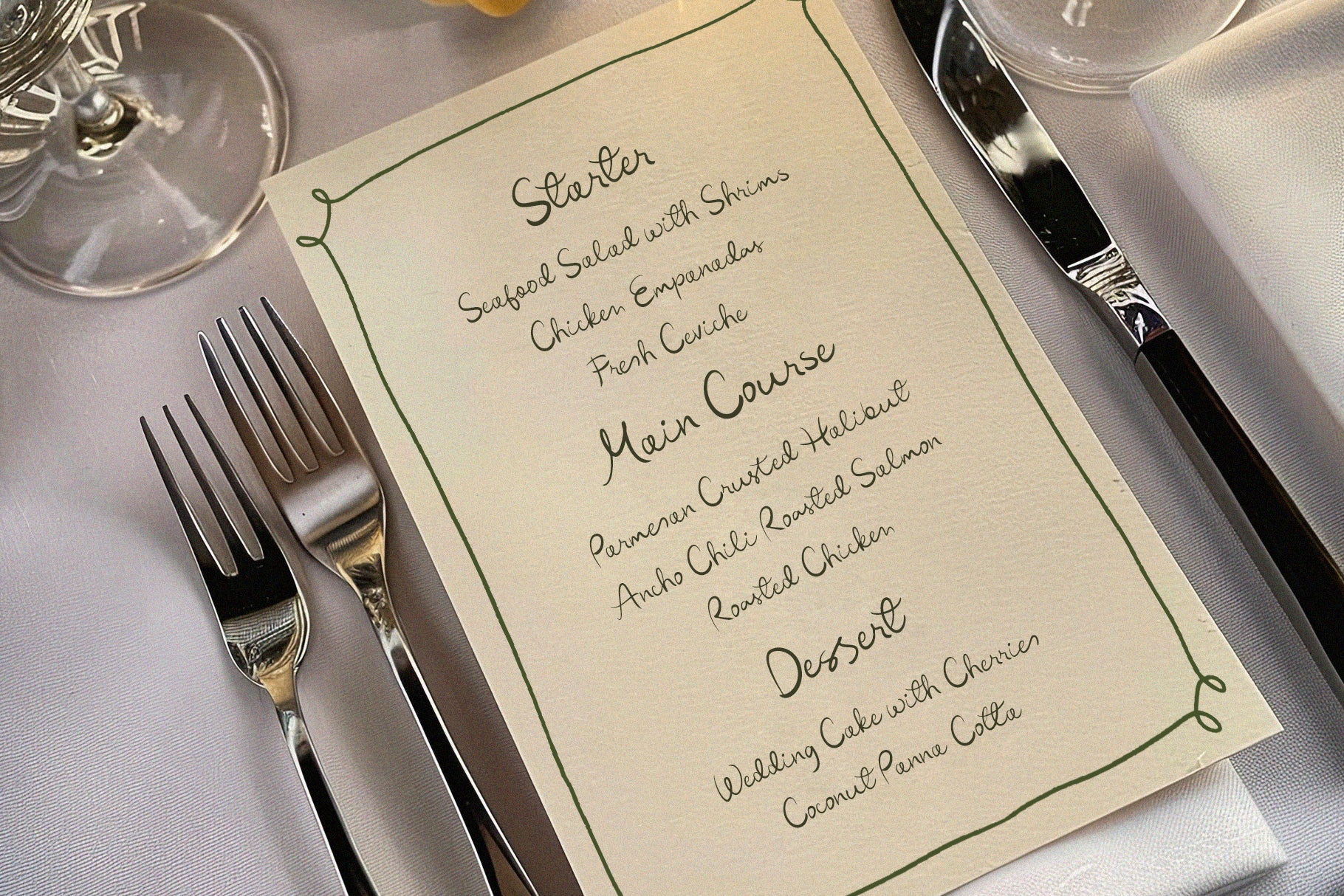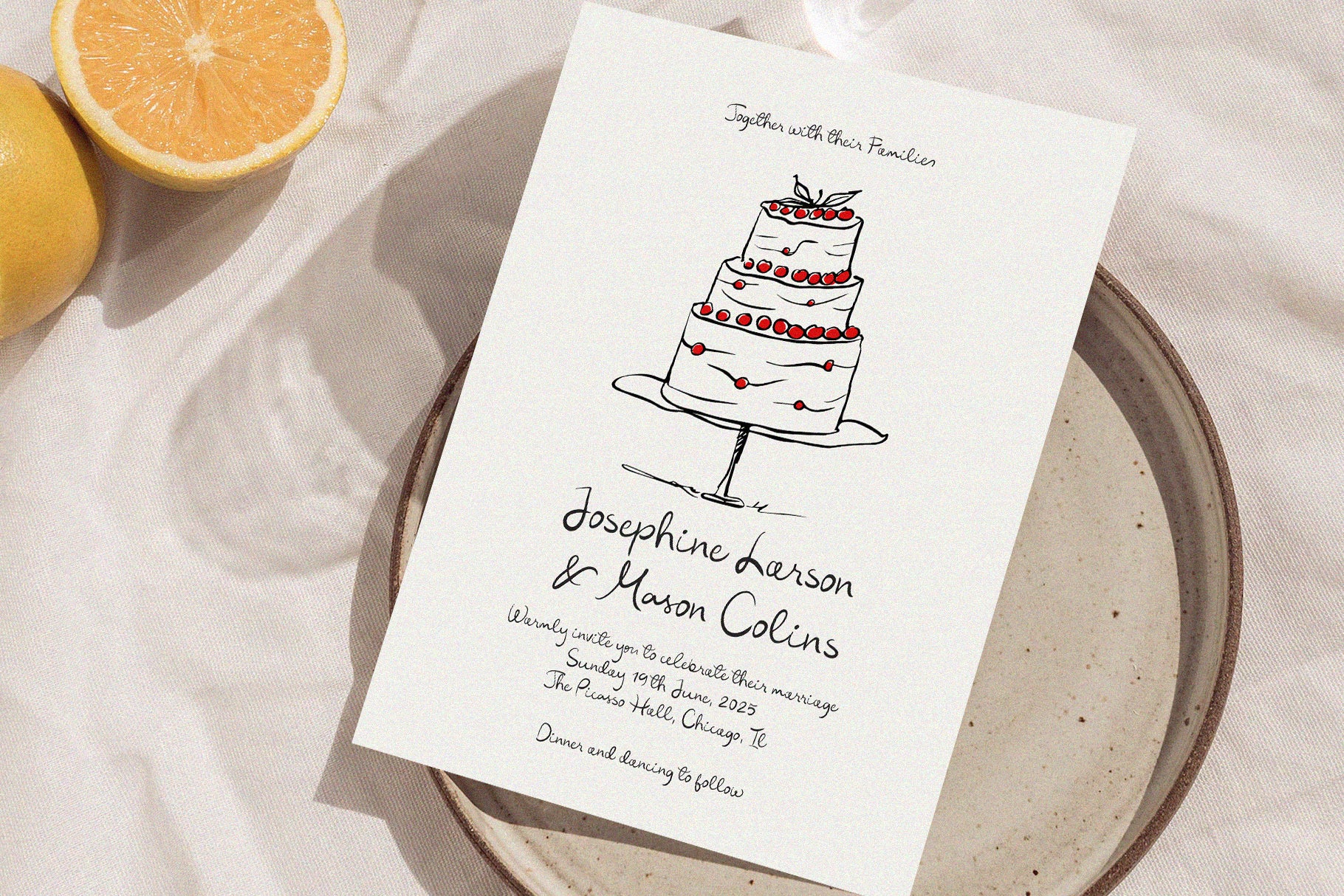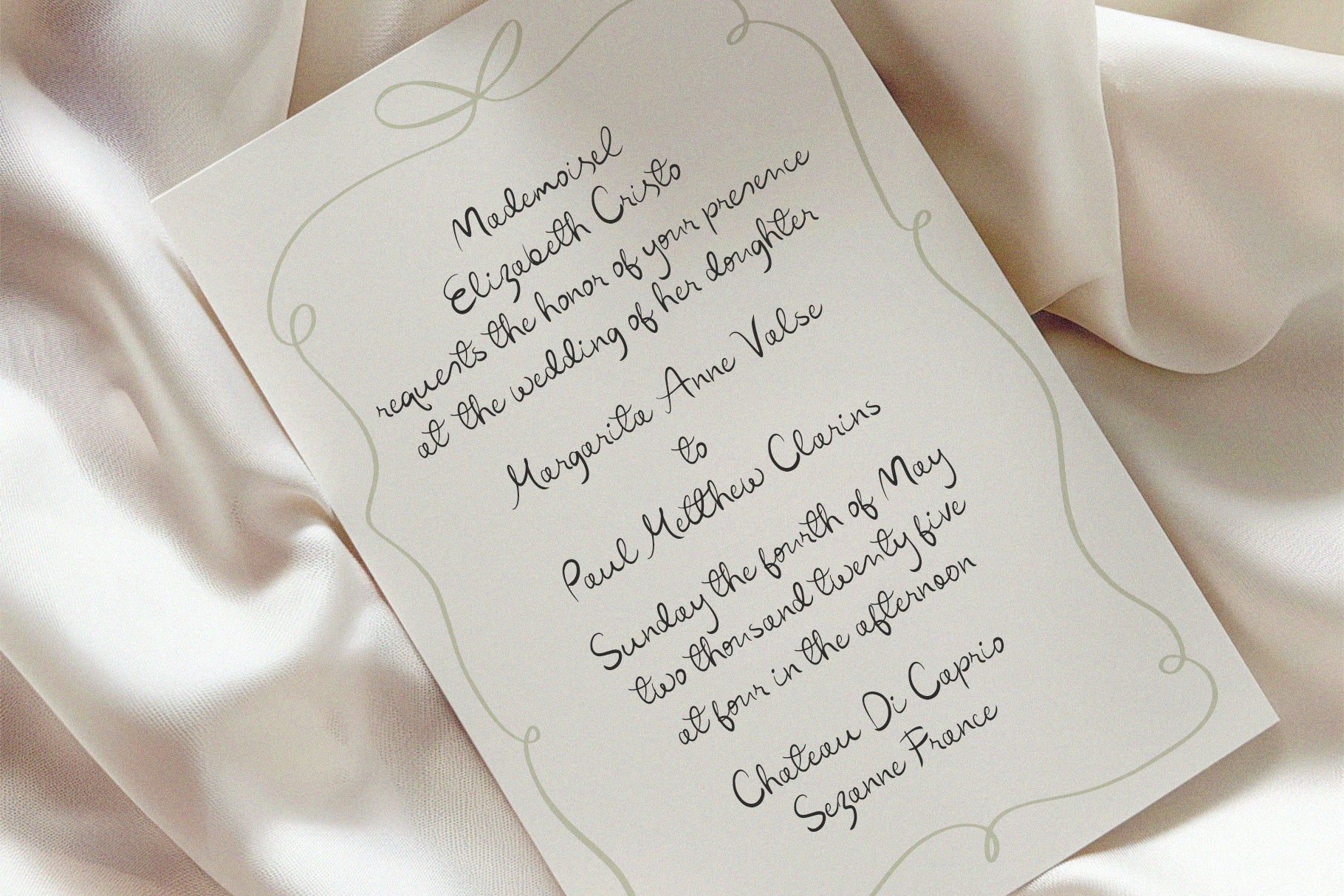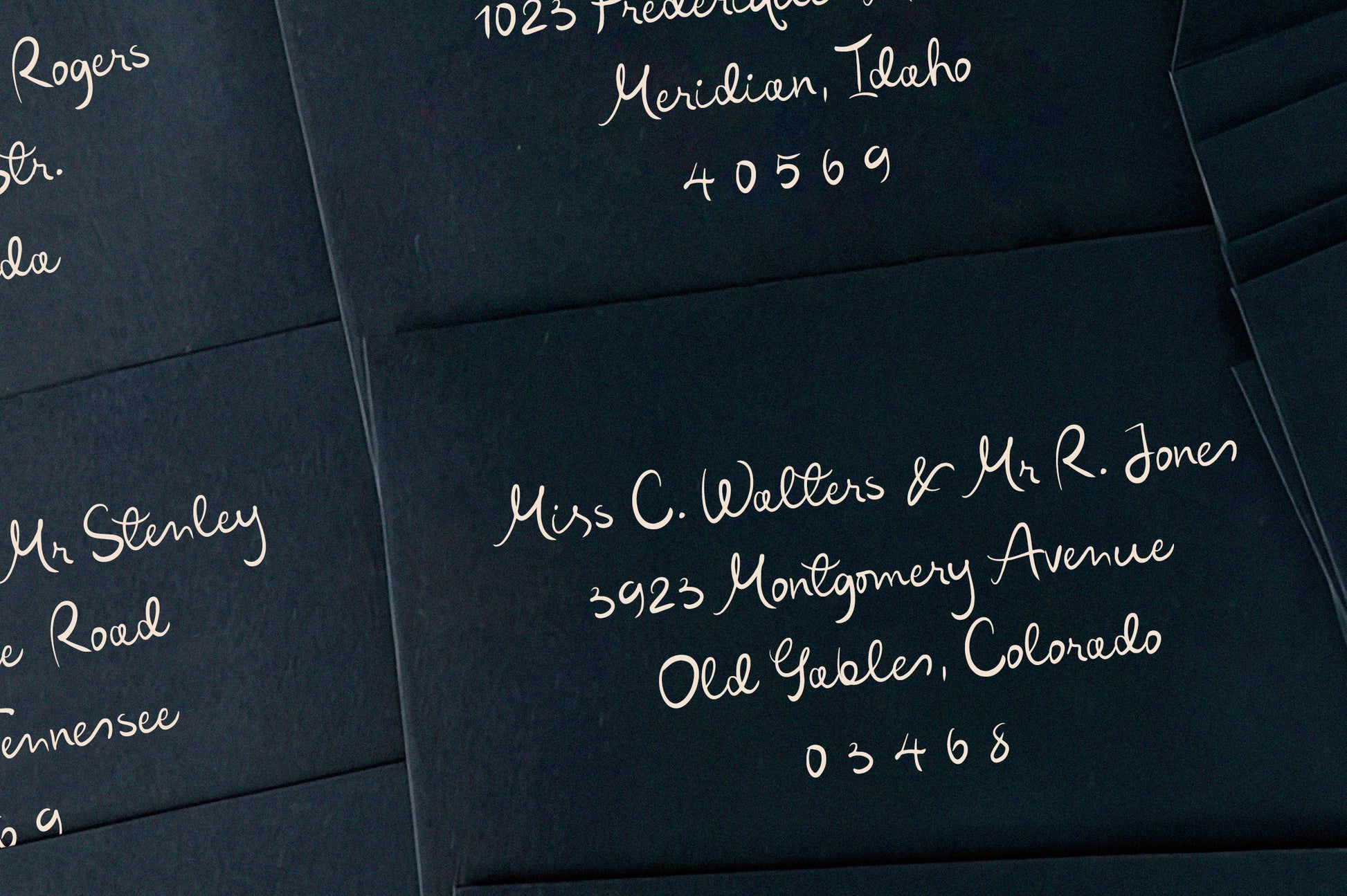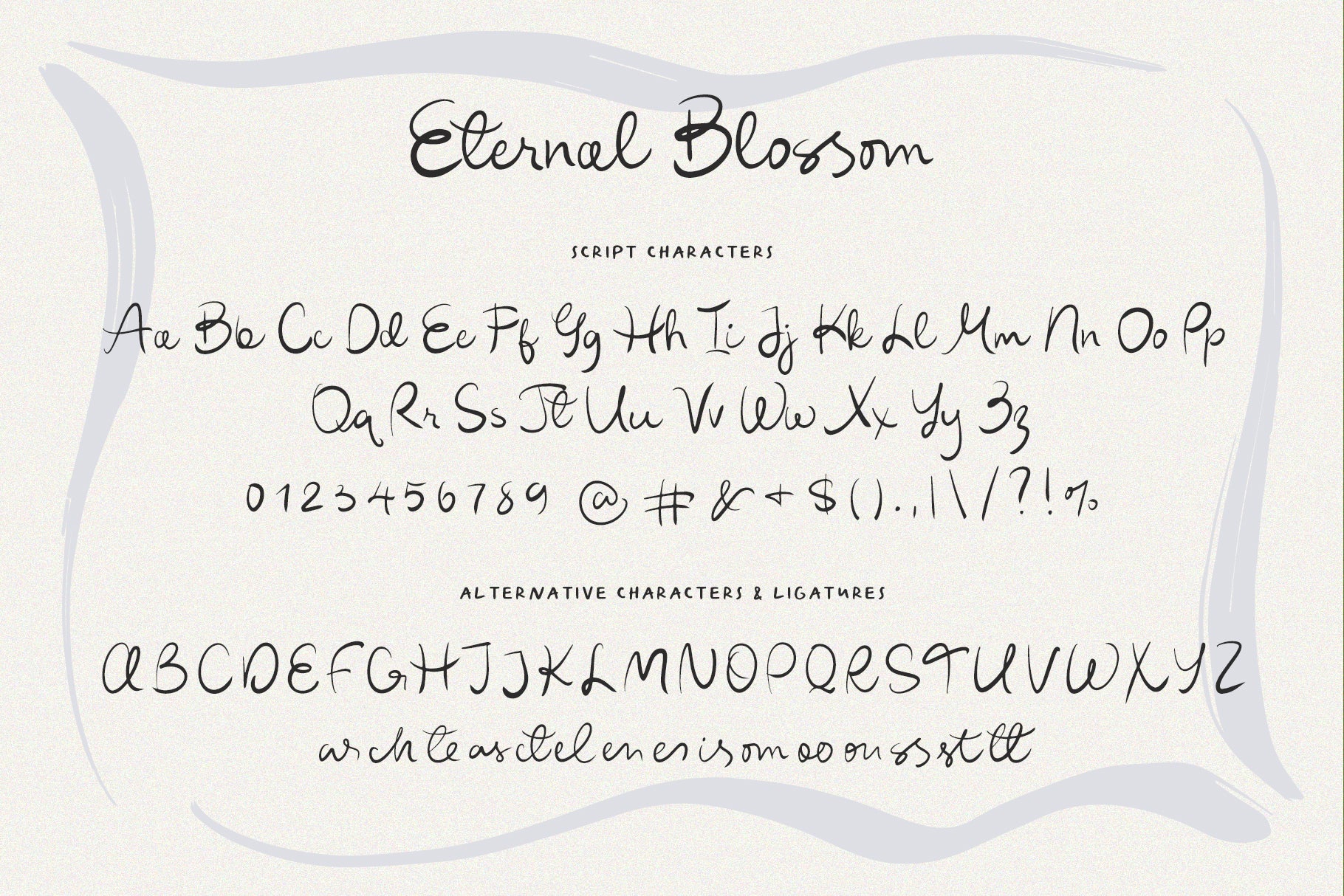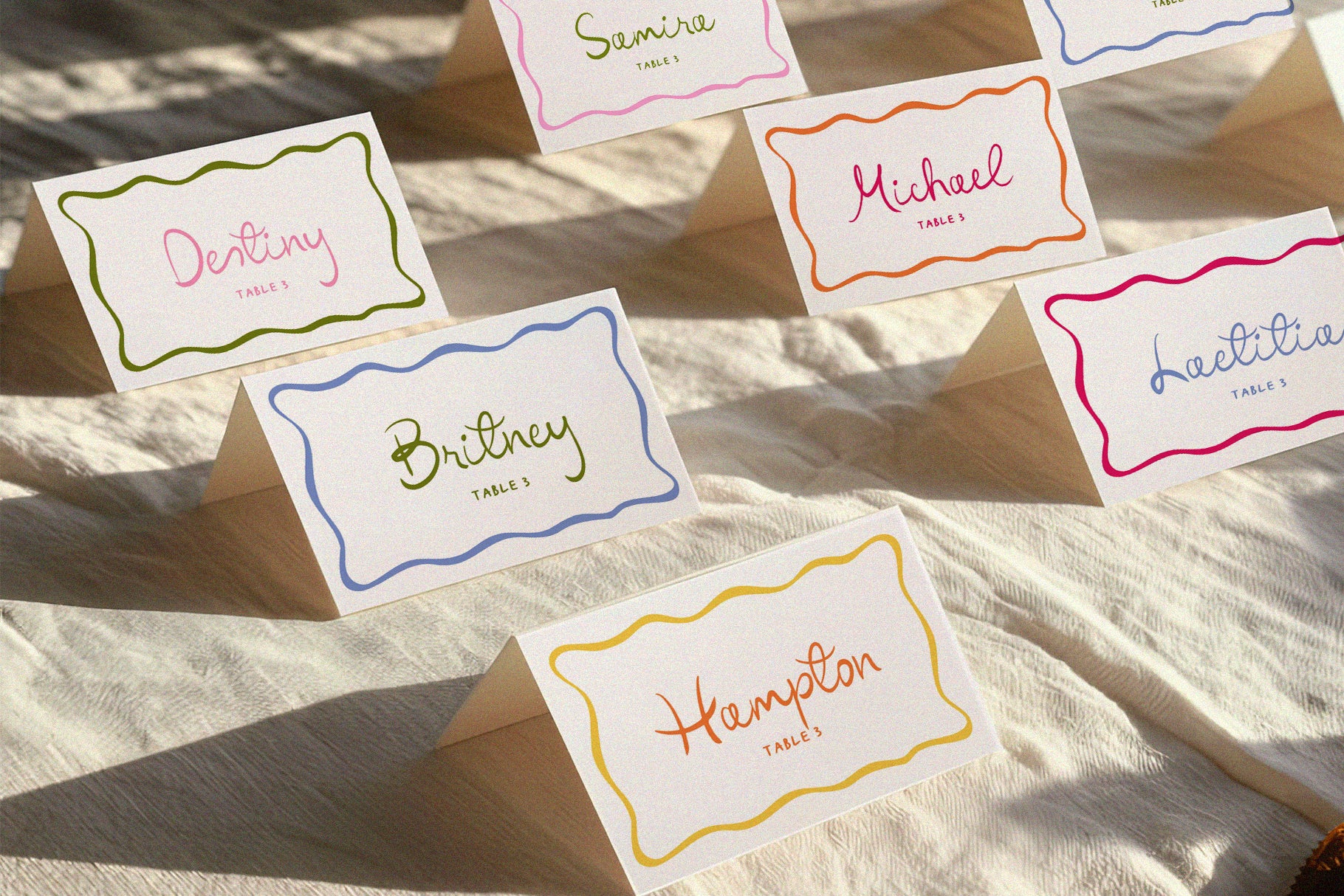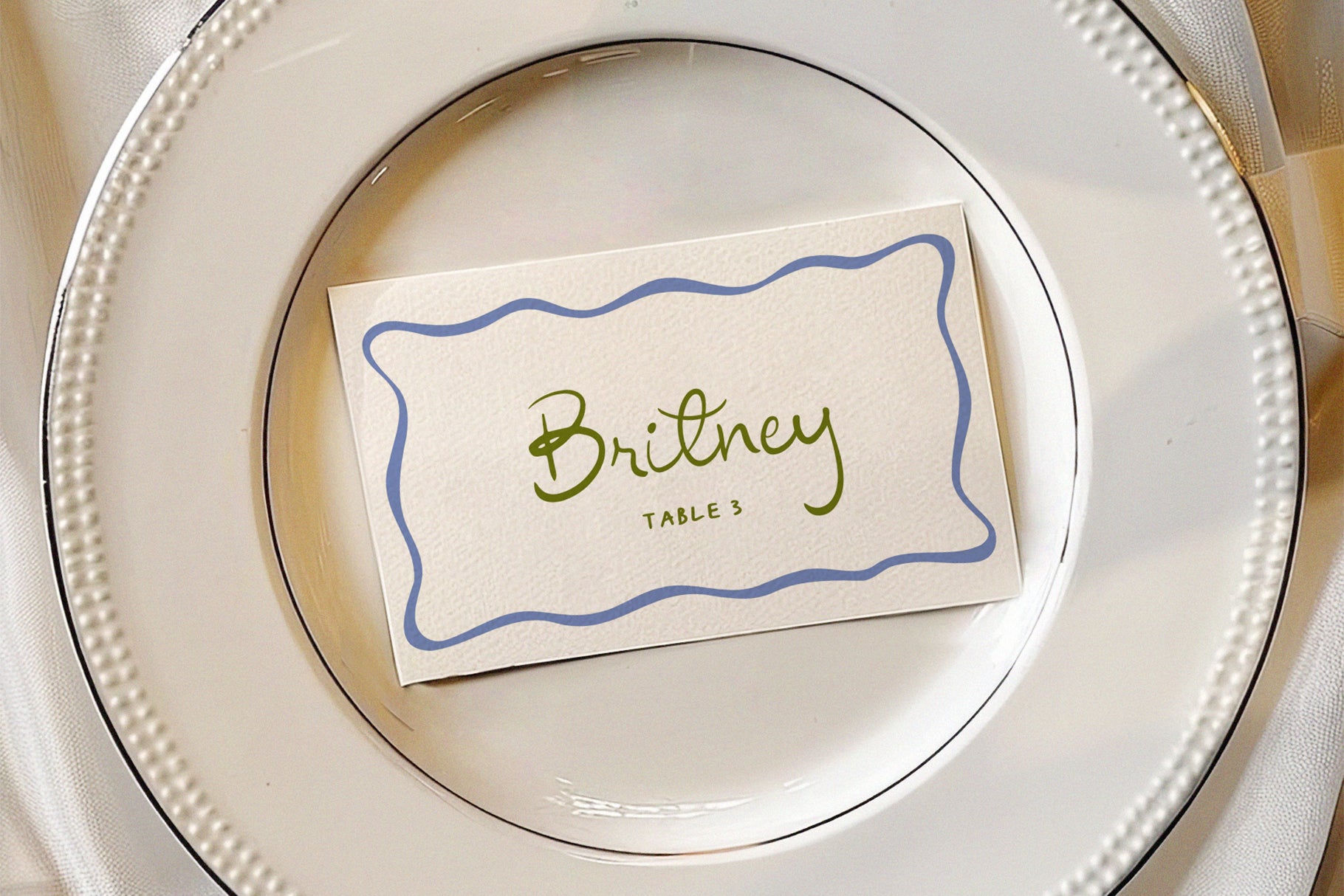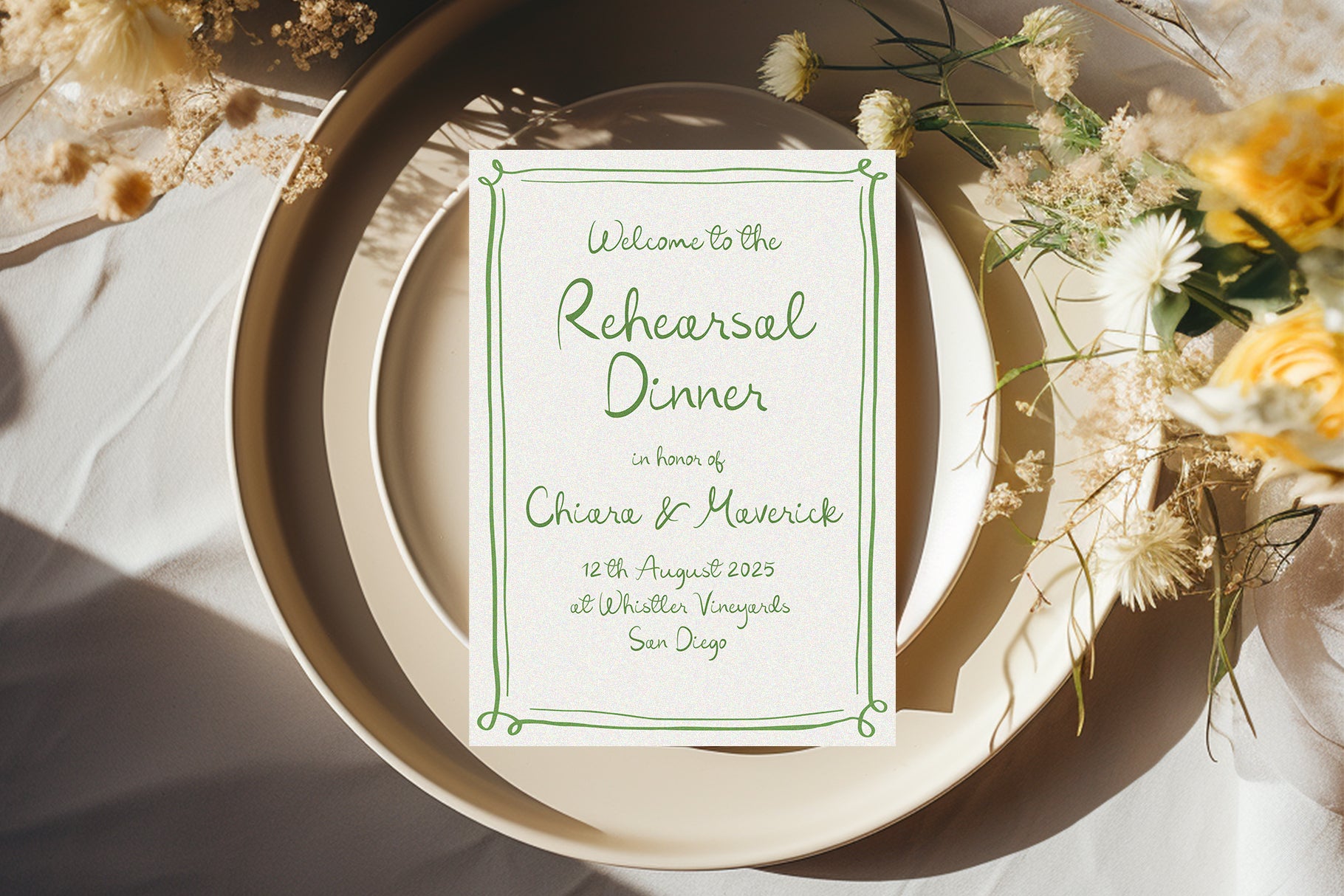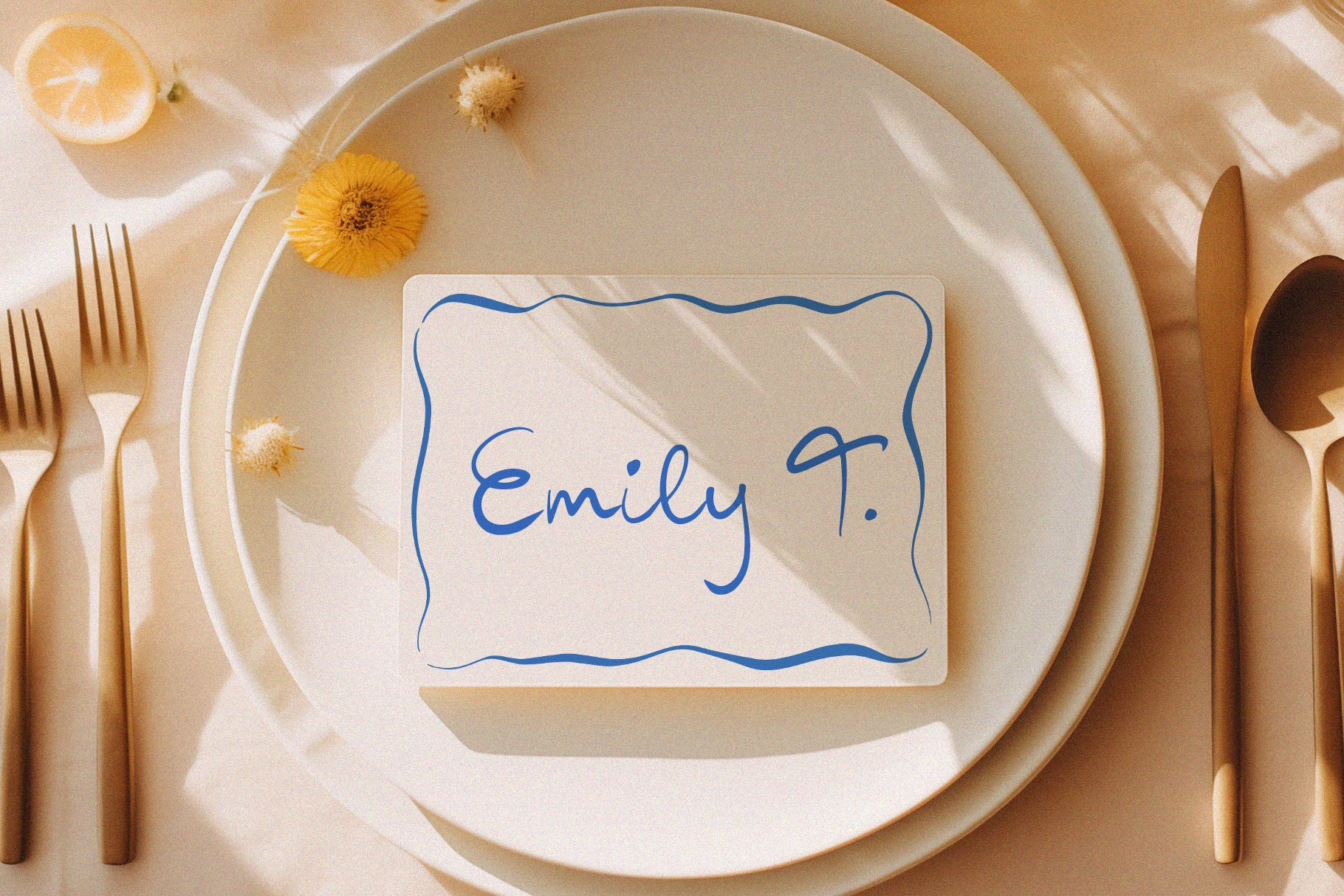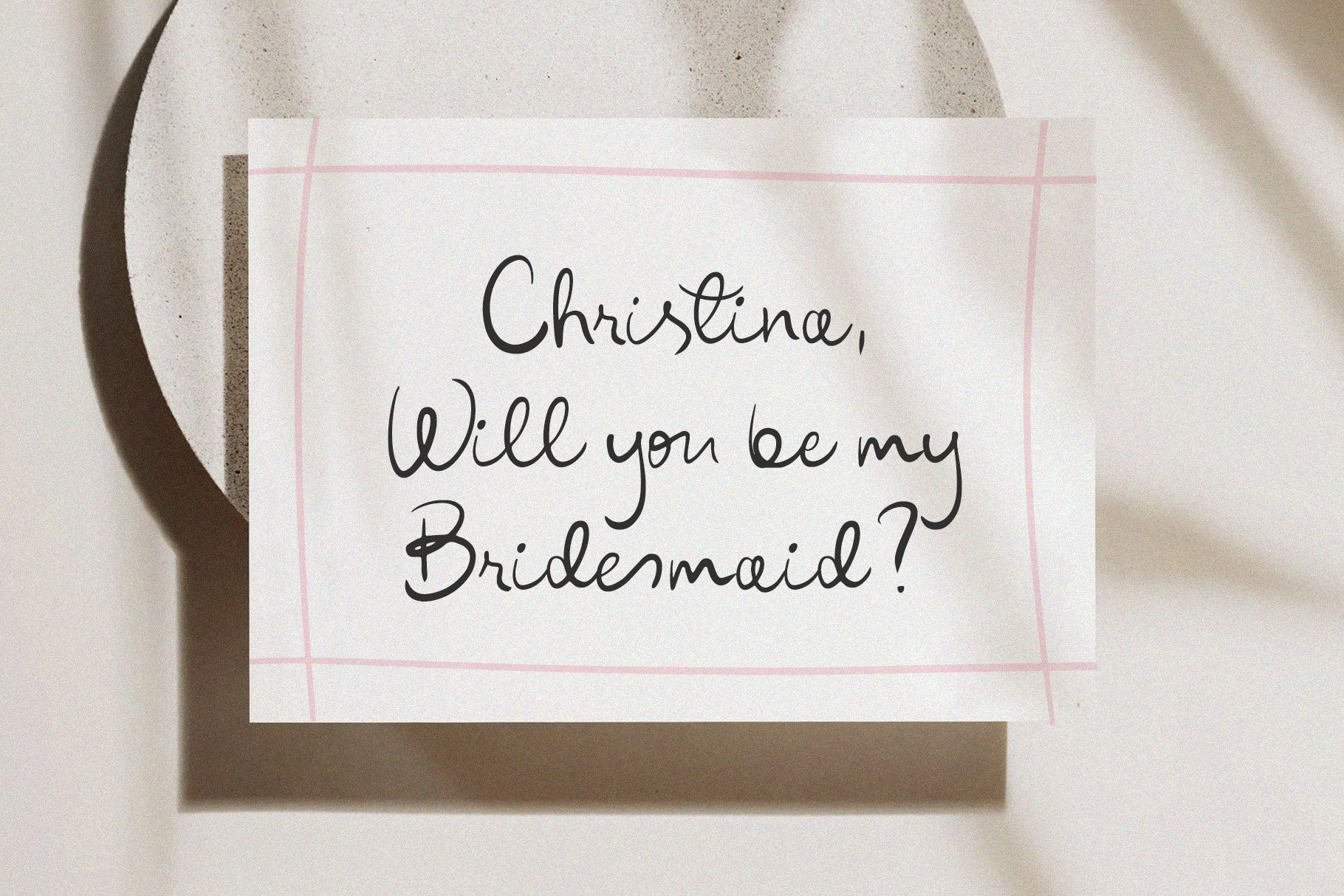
Eternal Blossom | Whimsical Handwritten Font
Introduce you the new trendy handwritten font that will be a perfect choice for the 2025-2026 Wedding Season.
It will look lovely for handwritten wedding invitations, menu, modern wall arts, instagram posts, quotes, branding. Eternal Blossom includes full set of Uppercase and Lowercase Basic Characters, Numbers, Punctuation, set of alternatives and ligatures.